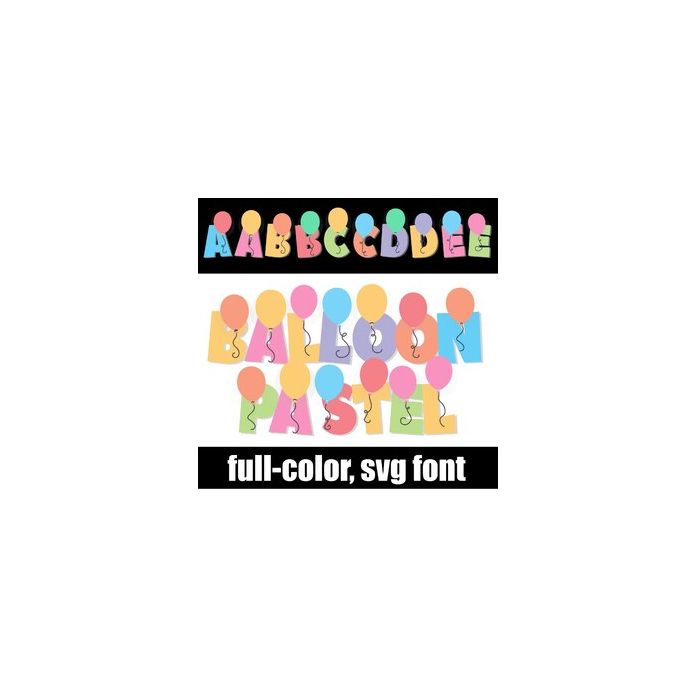
This full-color font features blocky sans serif lettering and pastel colored balloons. This font works best for titles, displays, posters and more. Please note color fonts will show as black in non compatible programs. This font type is compatible with Silhouette Studio.